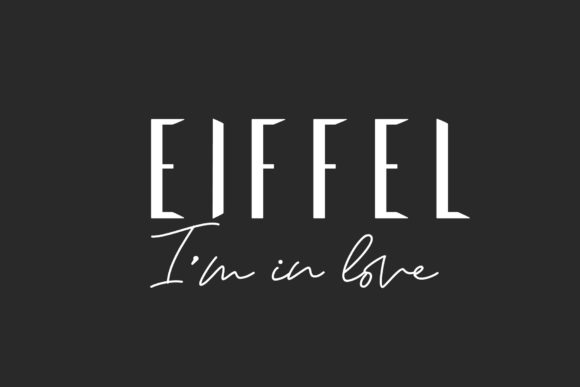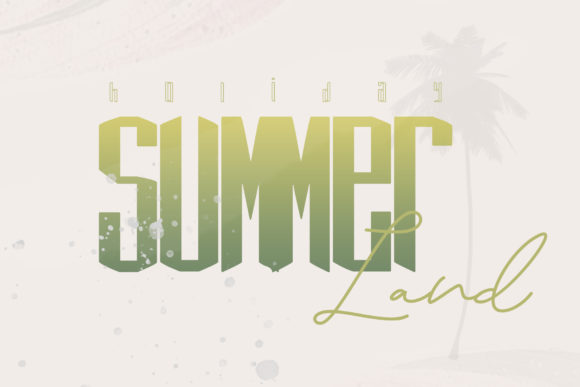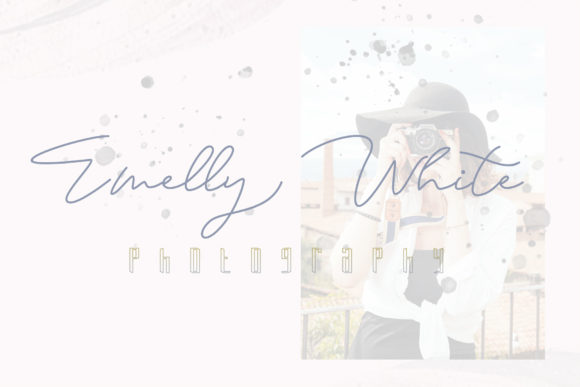
Introduction to Eiffel in Love Duo Font
Eiffel in love is a beautiful high fashion-themed font trio, consisting of two stunning sans fonts and one authentic script font.
Get inspired by its sophisticated charm .
Key Features of Eiffel in Love Duo Font